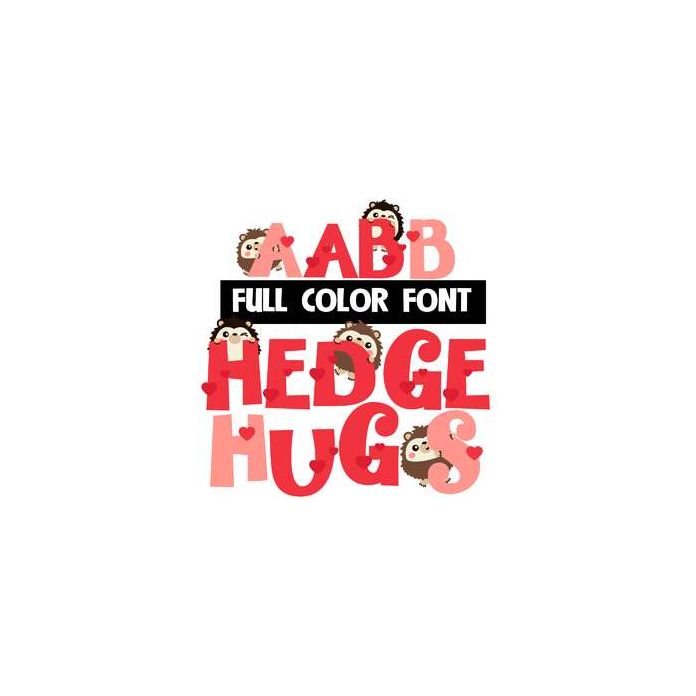
This full-color font features hedge hogs on the uppercase. This font works best for titles, displays, posters and more. Please note color fonts will show as black in non compatible programs. This font type is compatible with Silhouette Studio.